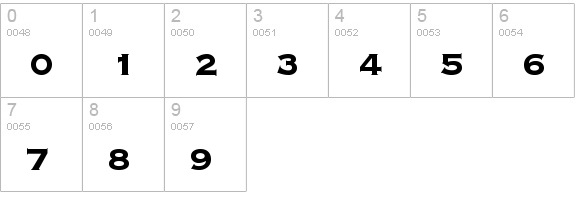
Copperplate Gothic Thirty-Three BC Font Details
Copperplate Gothic Thirty-Three BC is a timeless and elegant font that exudes sophistication and class. With its sharp, clean lines and classic aesthetic, this font is perfect for adding a touch of refinement to any design project. Whether you're creating invitations, logos, or branding materials, Copperplate Gothic Thirty-Three BC will elevate your work to a new level of style. The best part? This exquisite font is available for free download at FontsMarket.com. Now you can bring a touch of luxury to your projects without breaking the bank. Don't miss out on the opportunity to add Copperplate Gothic Thirty-Three BC to your font collection today and take your designs to the next level.